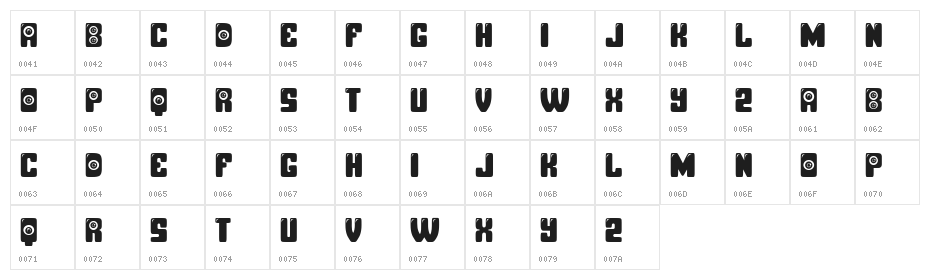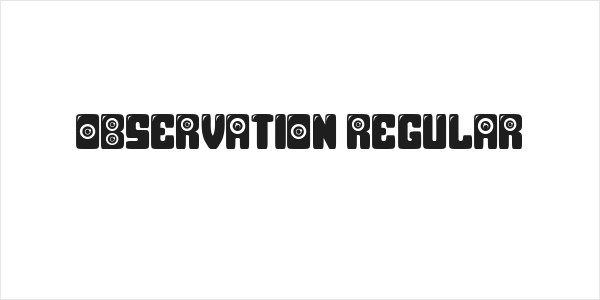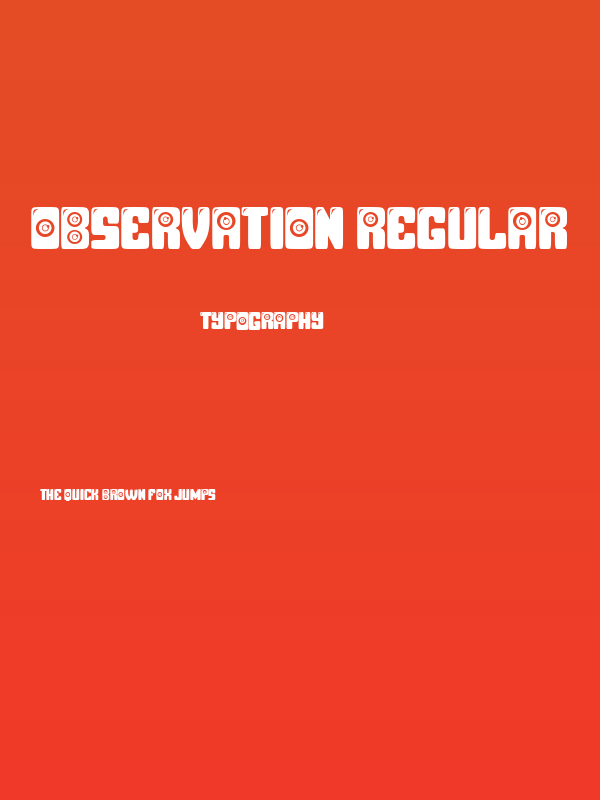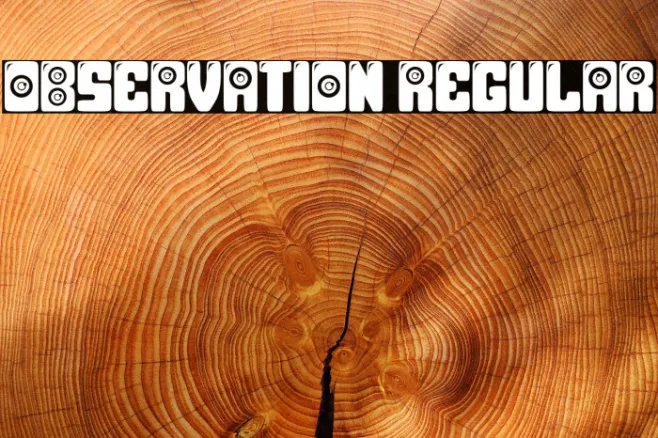
Observation Regular Font
Observation Regular Description
This font features a bold and playful design with a distinctly modern and decorative style. Each character is crafted with a unique, rounded shape that incorporates circular motifs, adding a sense of whimsy and creativity. The letters are uniformly bold, with a consistent thickness that gives the font a strong presence. The spacing between characters is tight, enhancing the compact and cohesive appearance. This font is ideal for projects that require a fun and engaging visual impact, such as children's books, playful branding, or eye-catching headlines.
| Proposed Projects | Ideal for children's books, playful branding, and eye-catching headlines. |